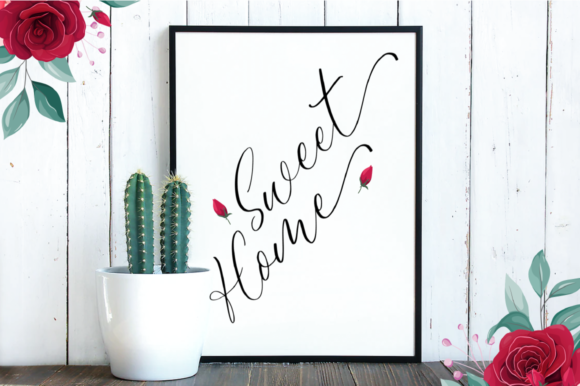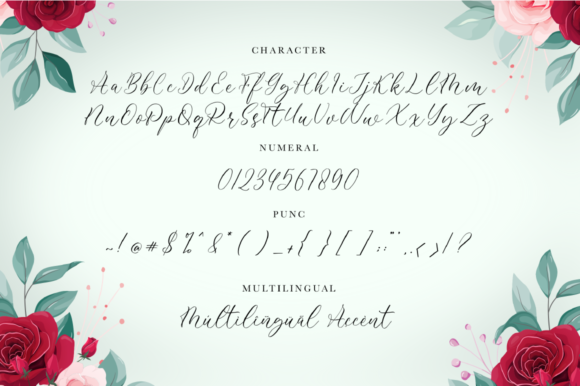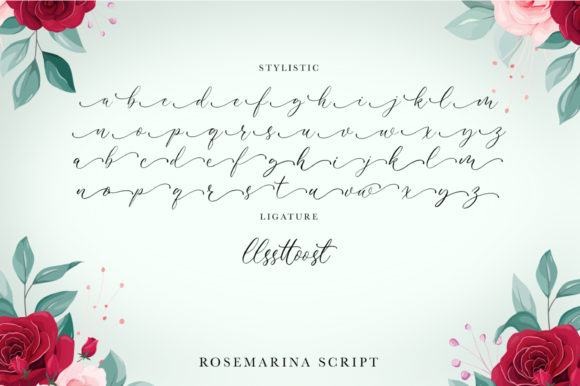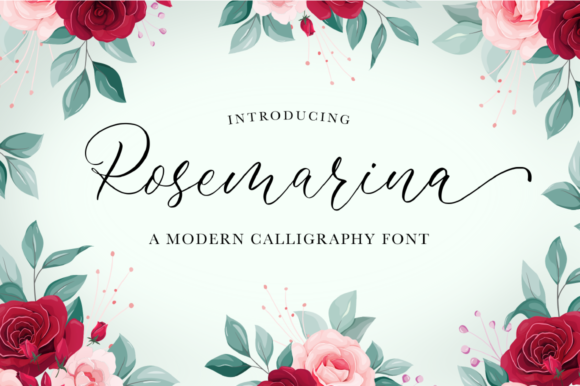
Introduction to Rosemarina Font
Rosemarina is a lovely and timeless handwritten font.
It is the best choice for creating eye catching logos, branding and quotes This font is PUA encoded which means you can access all of the glyphs and swashes with ease.
Key Features of Rosemarina Font
Why Choose Rosemarina Font?
Rosemarina Font offers exceptional quality and versatility, making it a valuable addition to your design toolkit. Whether you’re creating for personal projects or commercial use, Rosemarina Font delivers professional results.